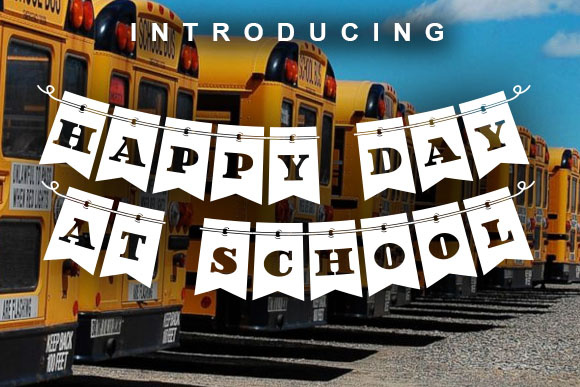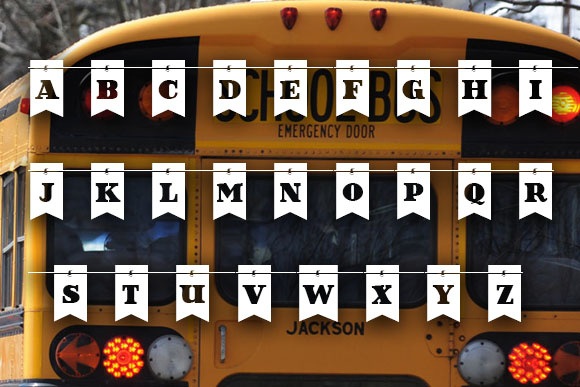
Happy Day at School Font
About the Happy Day at School Font
Introducing the Happy Day at School Font, a beautifully crafted typeface designed to elevate your creative projects. Happy Day at School is a nice decorative font that comes in Regular and Book versions. It is awesome for banners, posters, and more.
Its playful, rounded forms make it ideal for children’s projects, branding for educational materials, or playful product packaging. It works well in headlines, short slogans, and decorative elements within larger designs, but its decorative nature makes it unsuitable for body text or UI elements where readability is paramount.
Happy Day at School pairs effectively with clean sans-serif fonts like Open Sans or Lato for a balanced contrast, providing readability where needed. For a more whimsical feel, consider pairing it with a script font like Great Vibes, but use it sparingly to avoid overwhelming the design.
The font’s overall personality is friendly and approachable, conveying a sense of fun and childhood innocence. Avoid using it for projects requiring a sophisticated or serious tone.
Happy Day at School Font Usage Examples
Happy Day at School Font Example